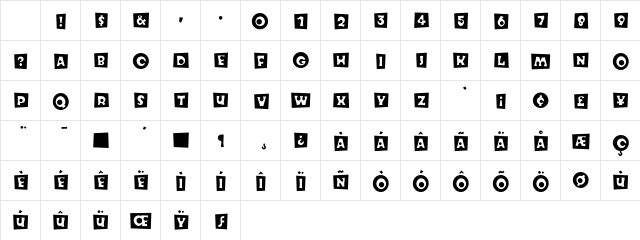
Complete Knobcheese Initials glyph index. Displaying only characters natively supported by Knobcheese Initials font.
Knobcheese is a composed and adaptable typeface that performs quietly and consistently across a wide range of design contexts.